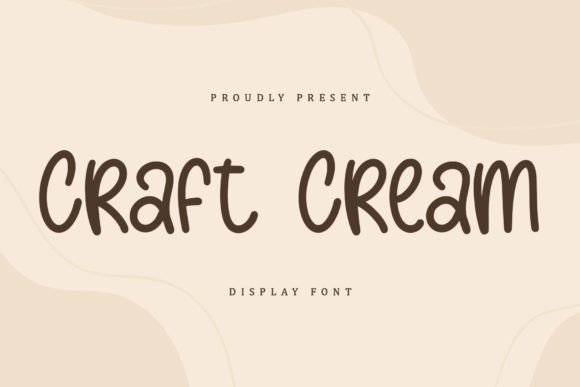
In a world saturated with digital monotony, where communication often lacks the warmth and soul of handwritten expression, Cream Craft Font emerges as a captivating oasis of creativity. Inspired by the allure of handcrafted letters, this font is a symphony of flowing curves, graceful strokes, and elegant flourishes that evoke a sense of timeless charm.
With Cream Craft Font, your words transcend the mundane and transform into exquisite works of art. Its meticulously crafted characters dance across the screen, like delicate brushstrokes painting a vivid tale. Each letter carries a whisper of intimacy, inviting your audience into a realm of heartfelt connection and visual delight.
Step into a world where your brand speaks with eloquence and sophistication. Cream Craft Font elevates your designs, adding a touch of understated luxury that captivates and enchants. From wedding invitations that exude timeless romance to branding materials that radiate elegance, this font is the perfect choice for businesses and individuals seeking to make a lasting impression.
Unleash your creativity and let your imagination soar with Cream Craft Font. Whether you're a seasoned designer or a passionate hobbyist, this font is your gateway to a world of boundless expression. Its versatility knows no bounds, allowing you to effortlessly create stunning designs that resonate with your audience on a profound level.